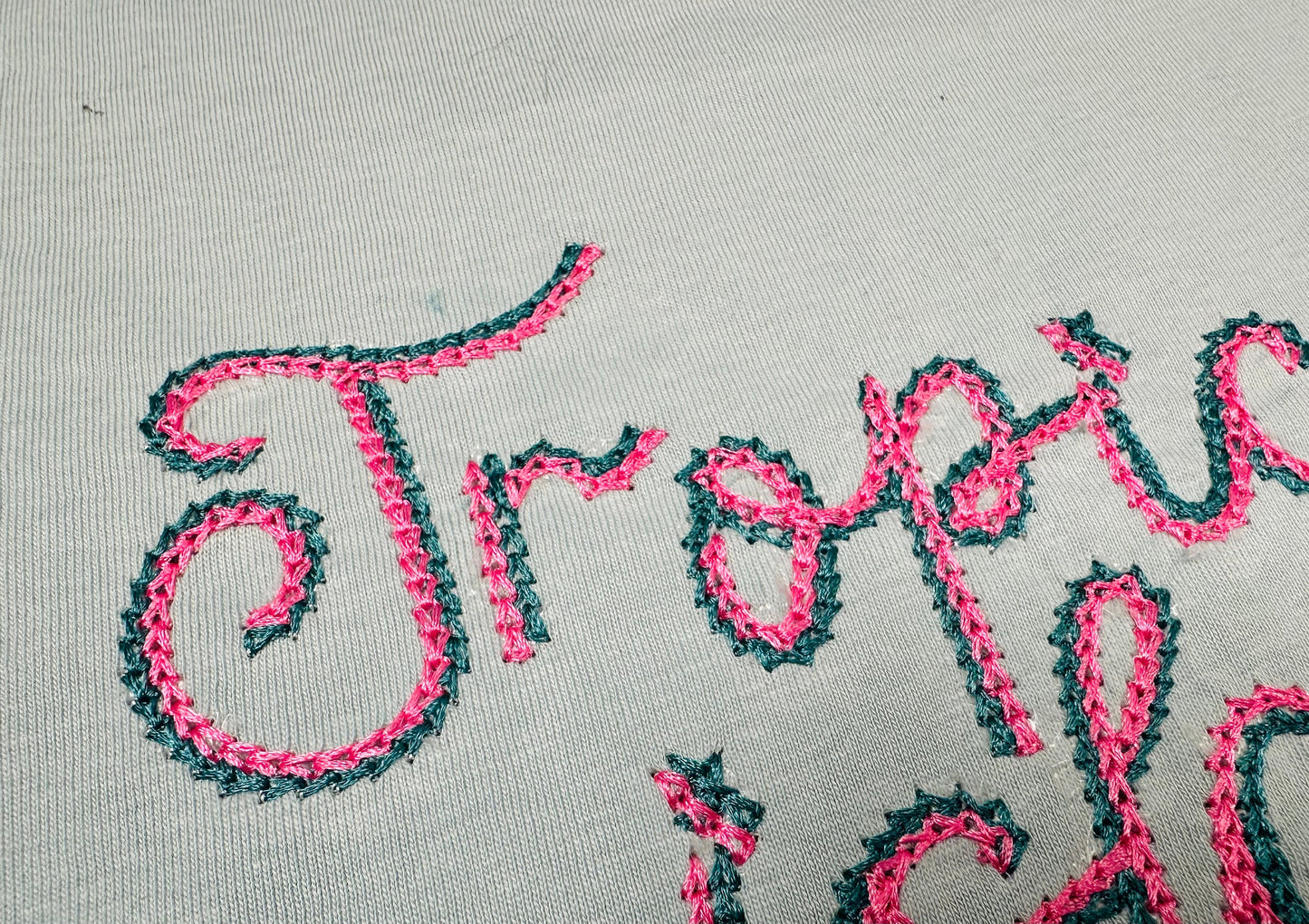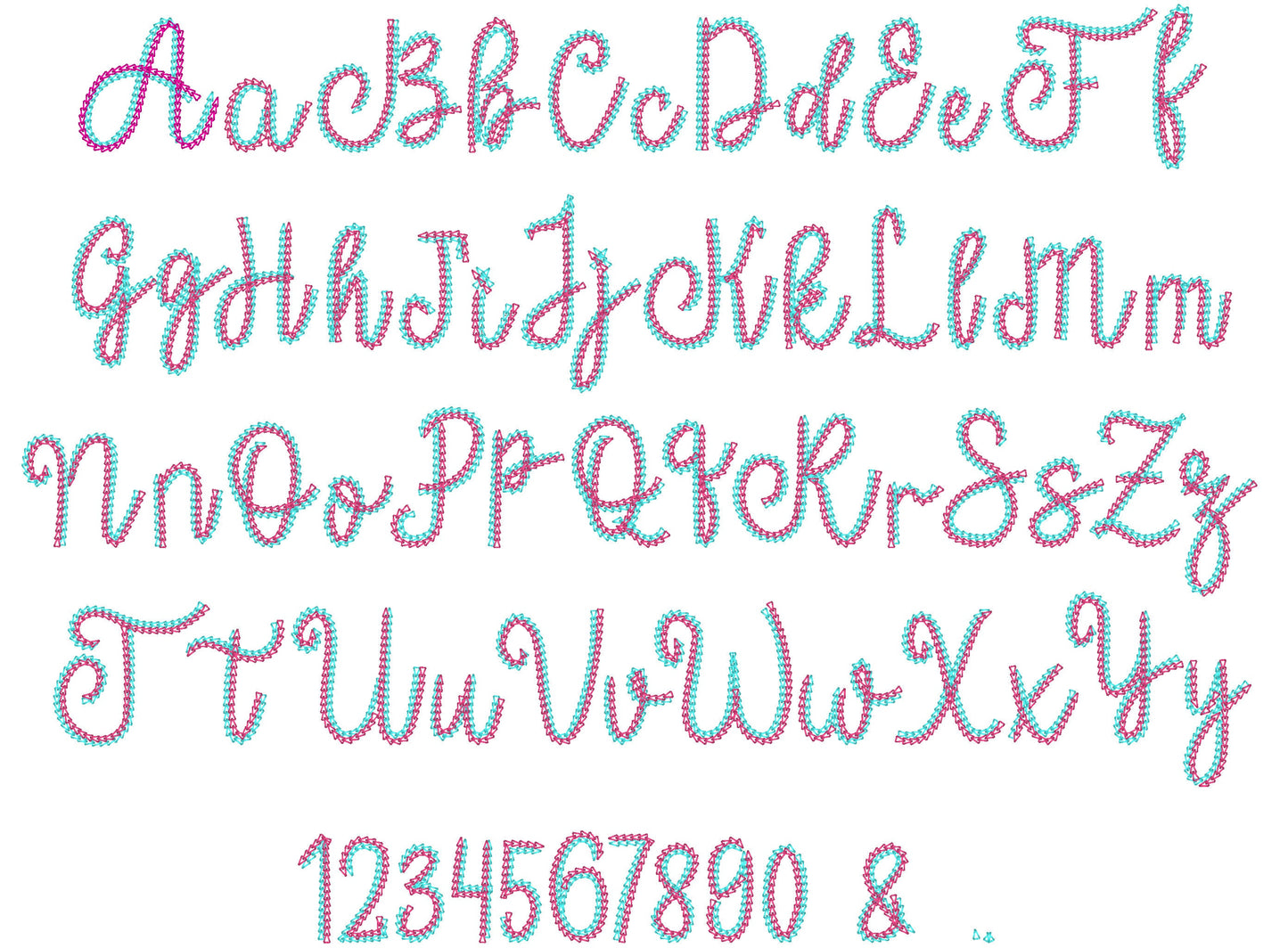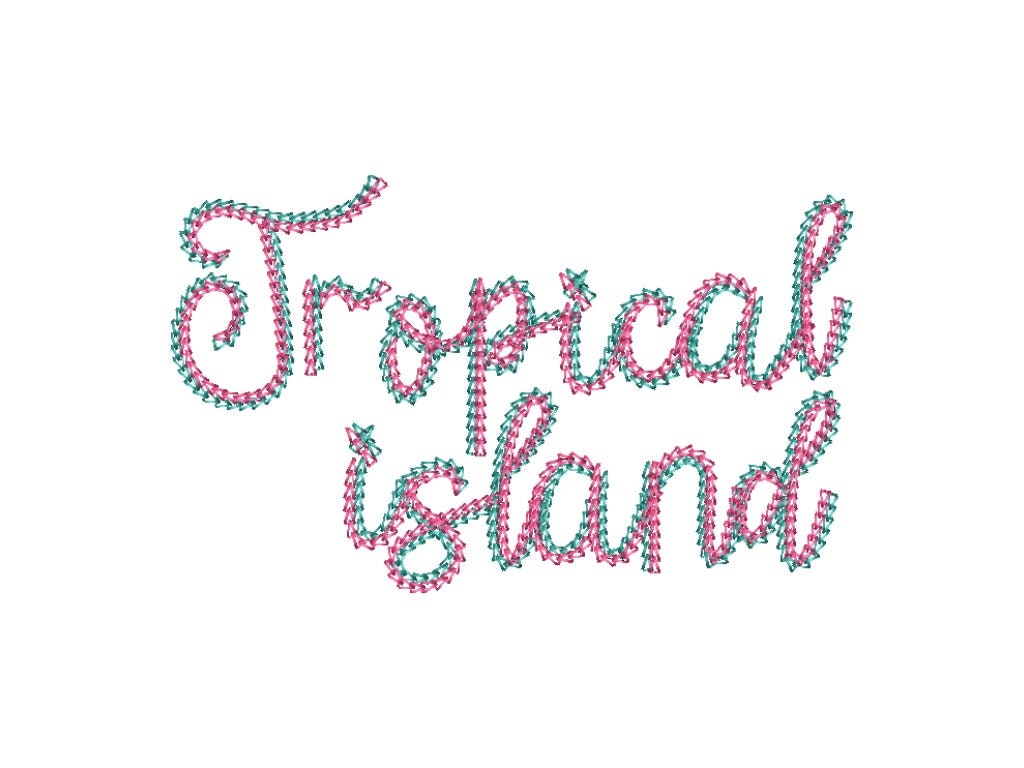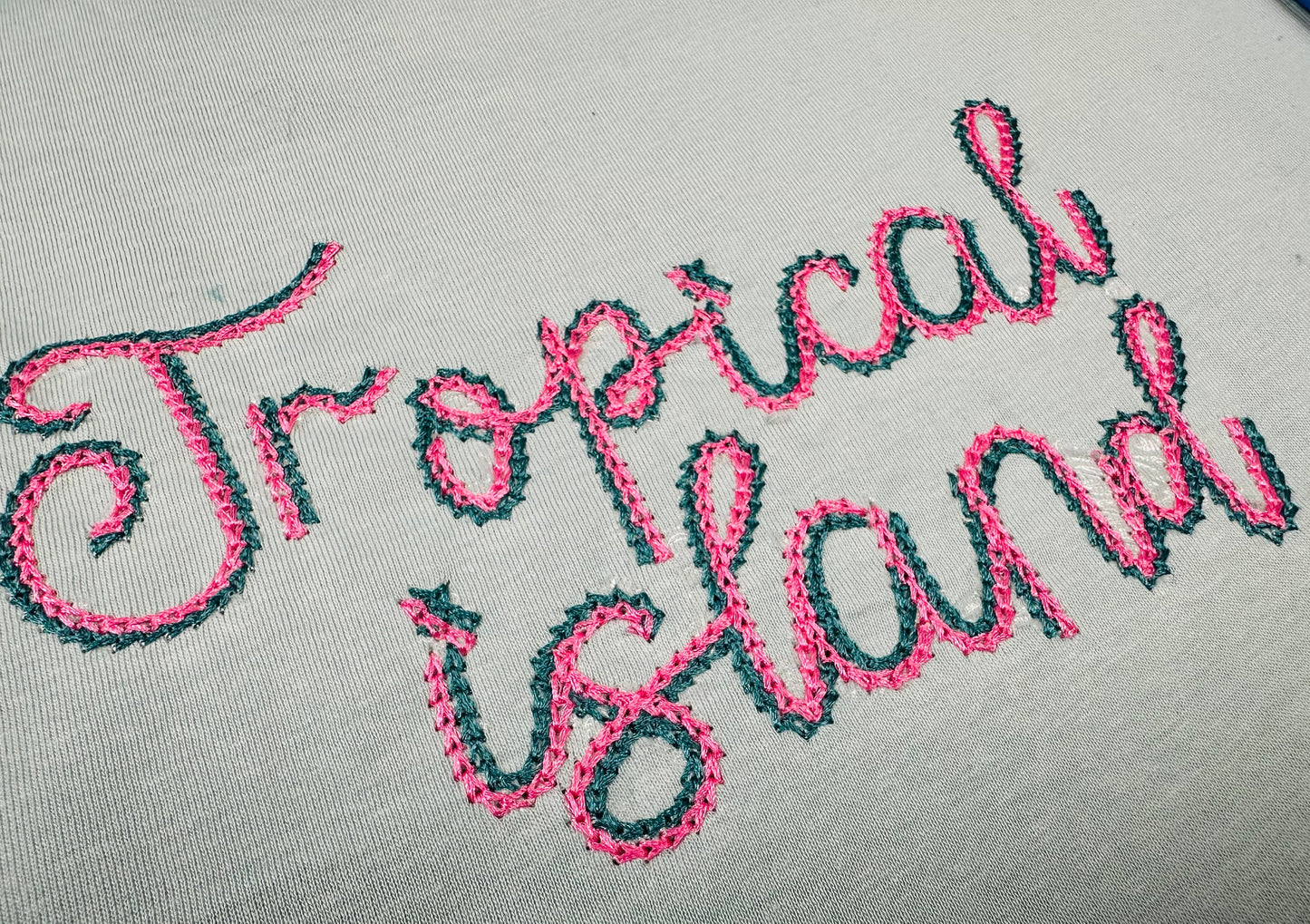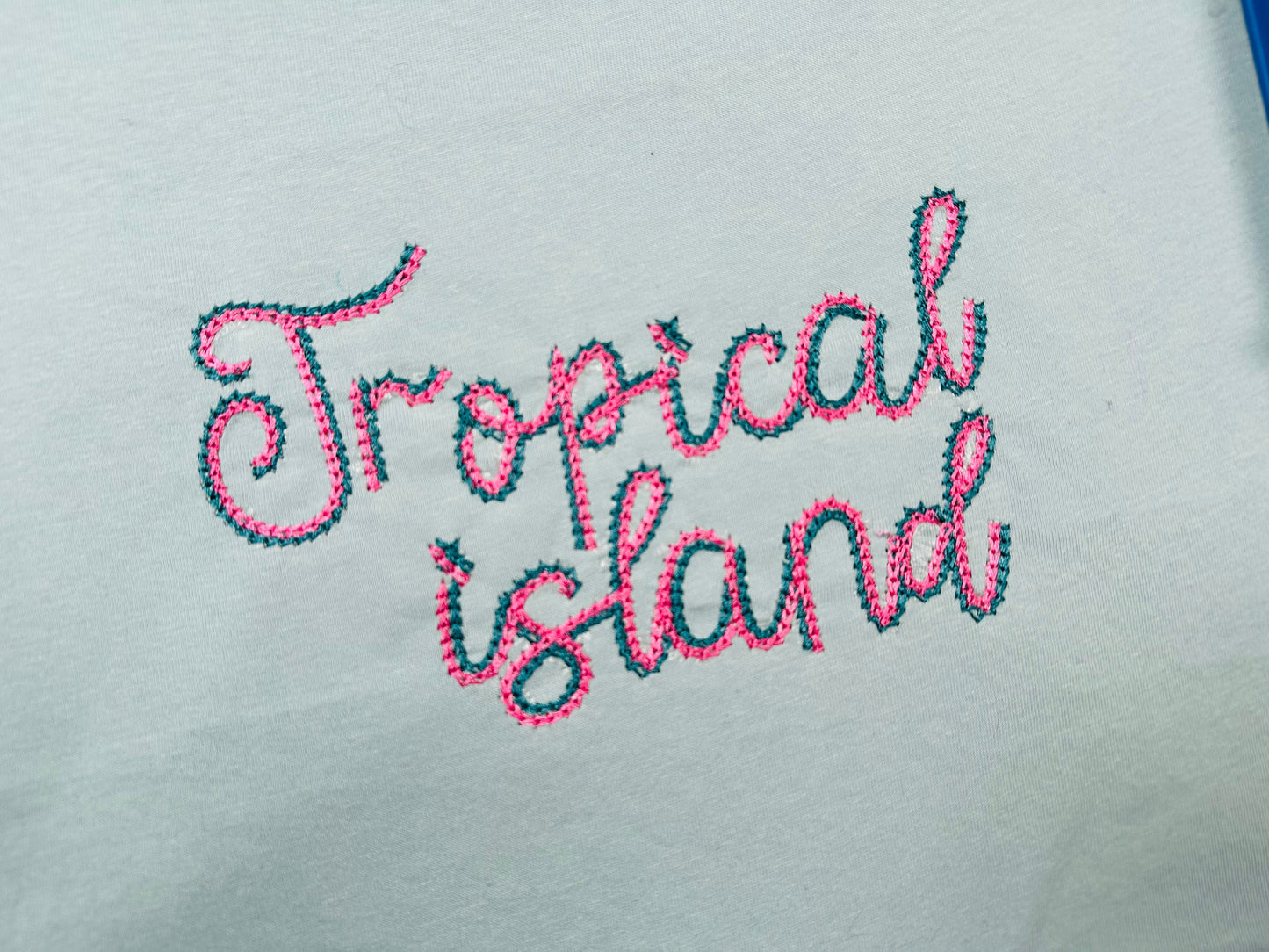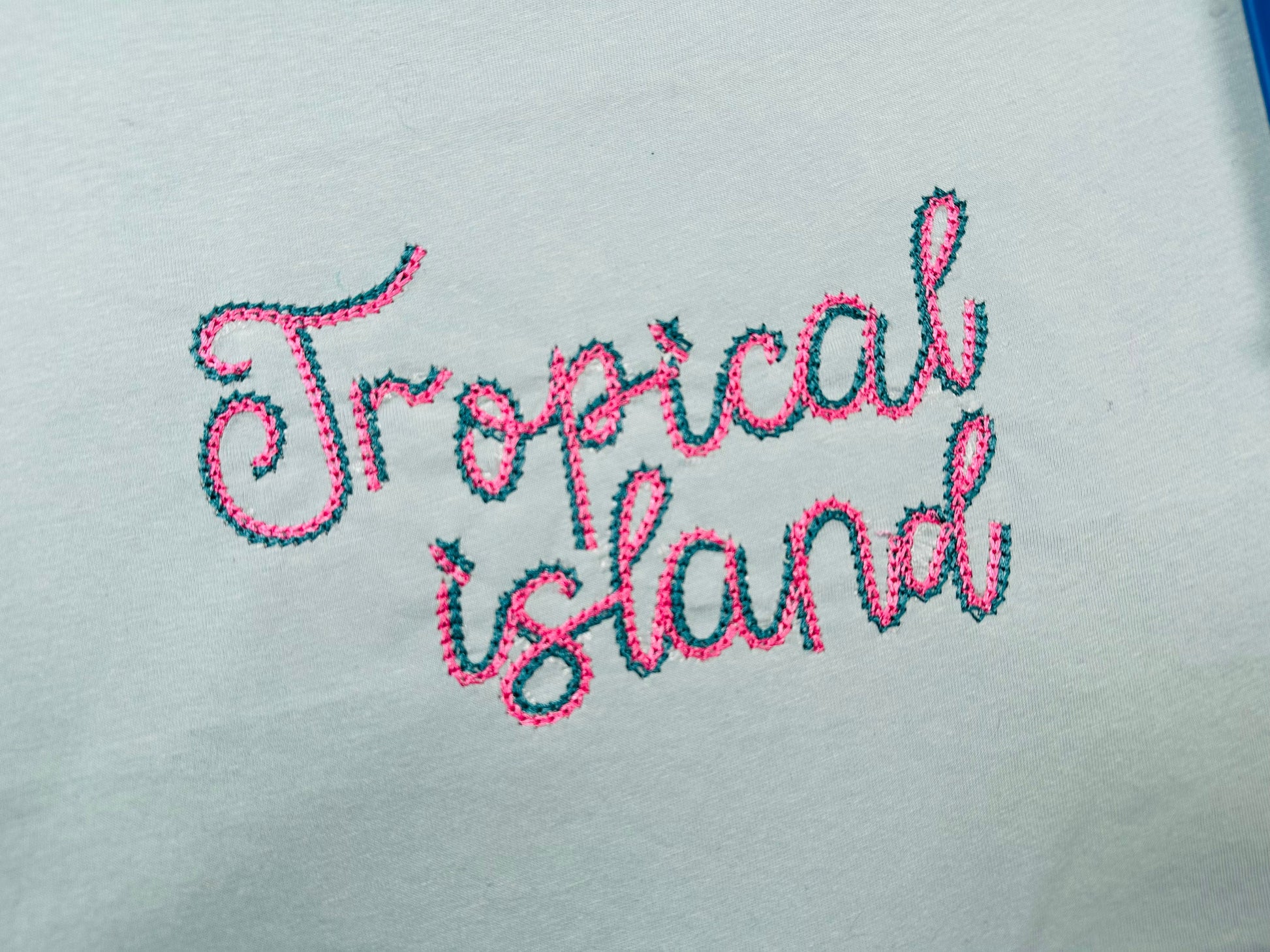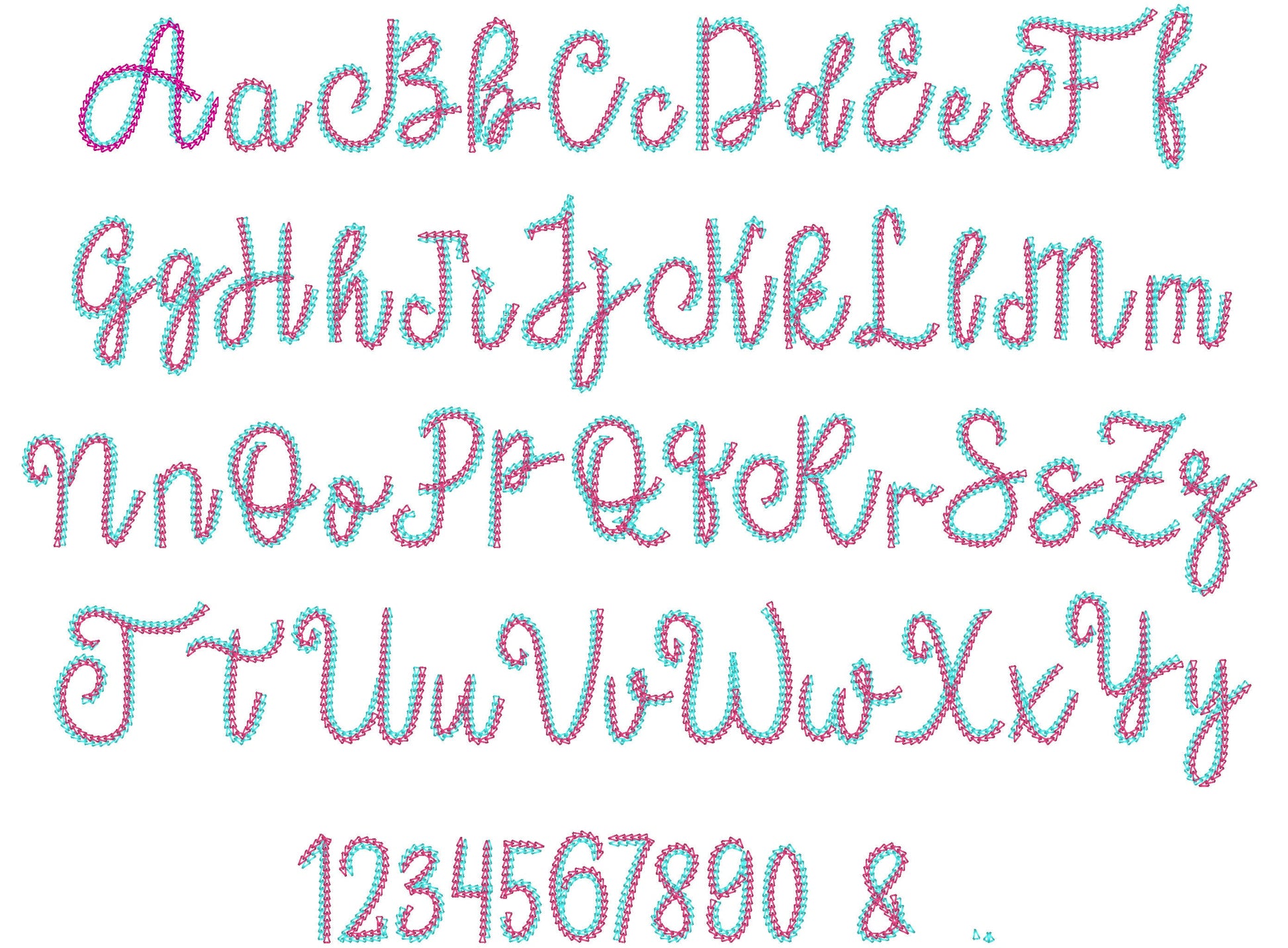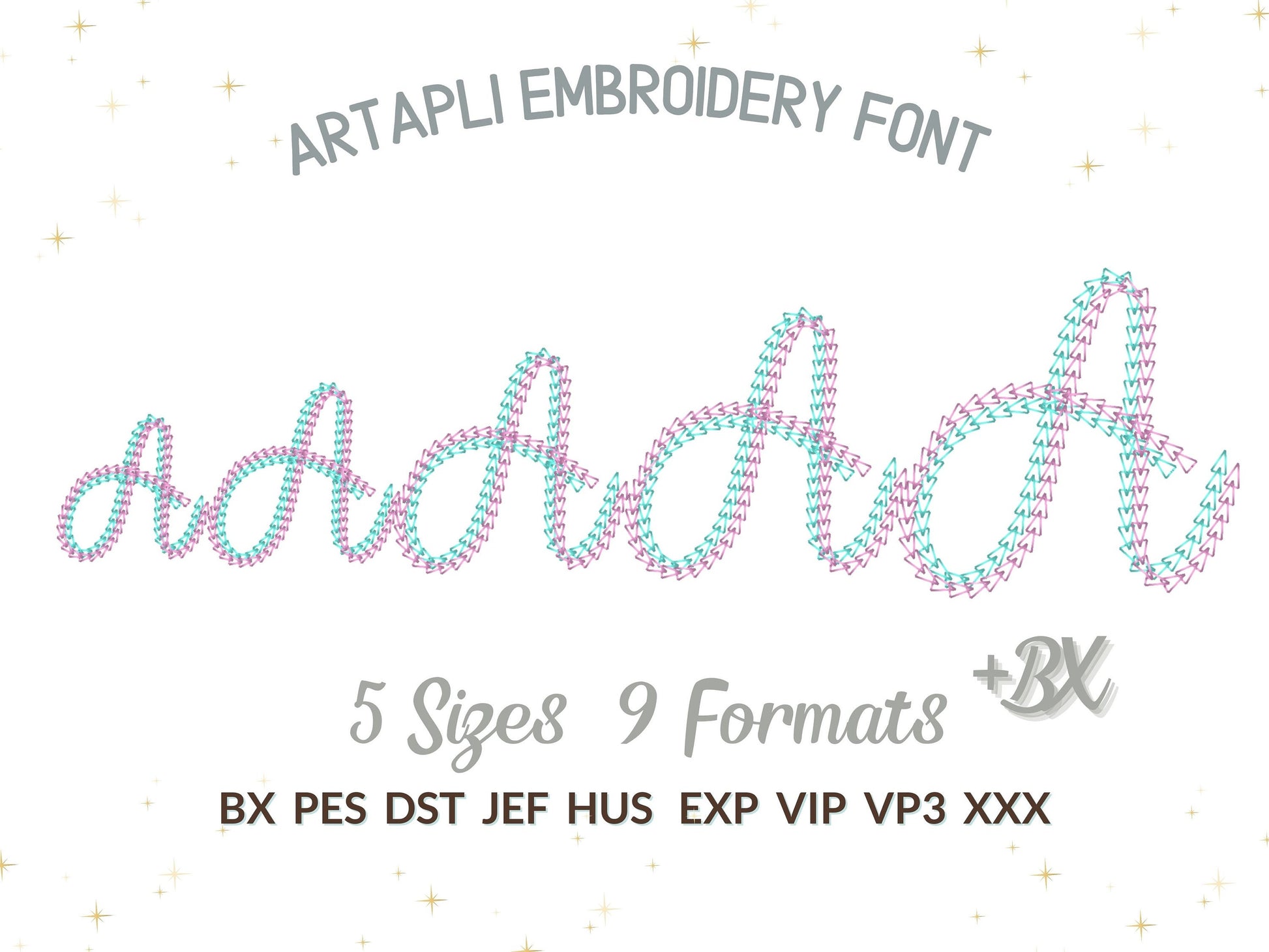
Or click to open the linkA double light stitch chain font, like a playful chain. Quick for kids' names, bibs, shirts and small gifts.
Uppercase and lowercase letters, numbers 0 to 9 and punctuation in five sizes: 1.3, 1.7, 2, 2.5 and 3 inches. Two lines of light chain stitching keep the letters soft and quick to sew, even on thin fabrics.